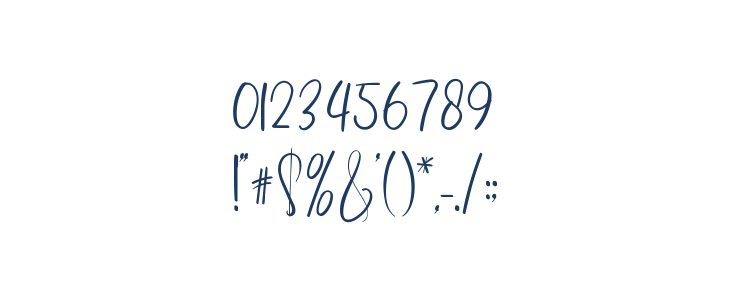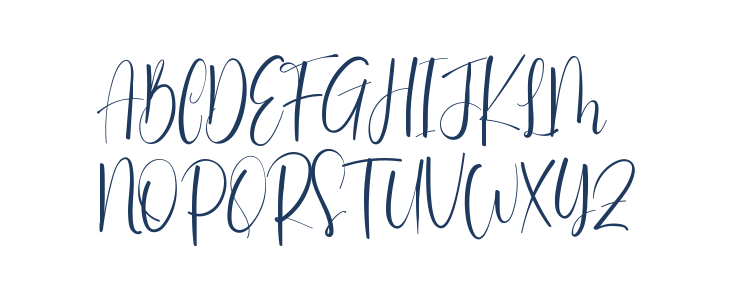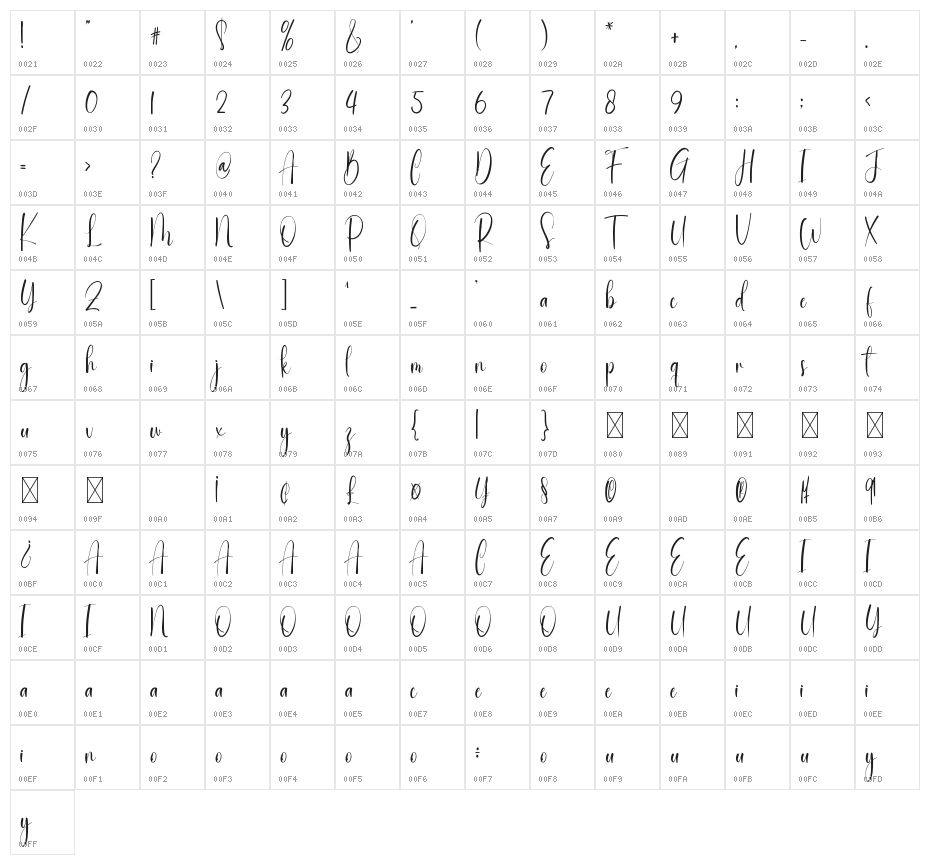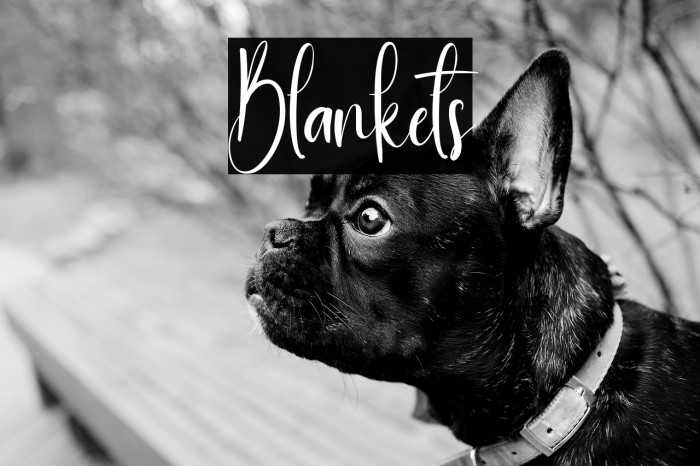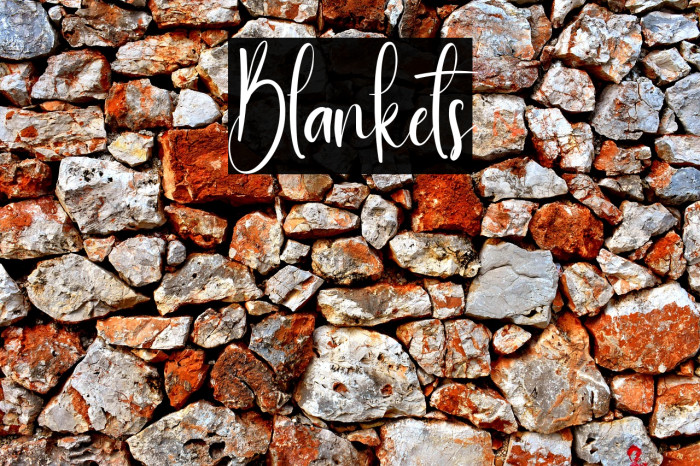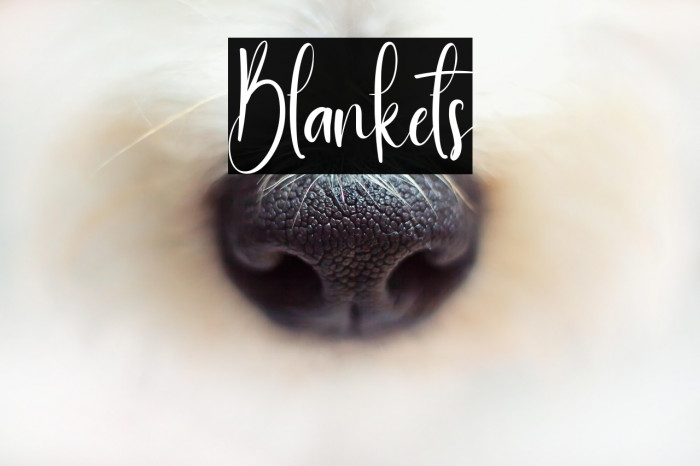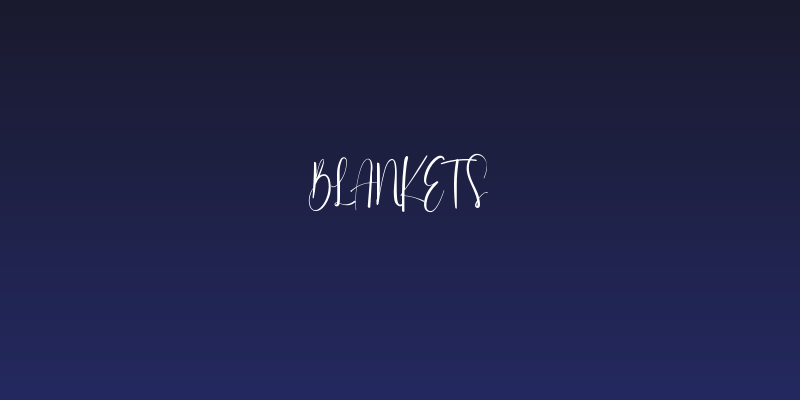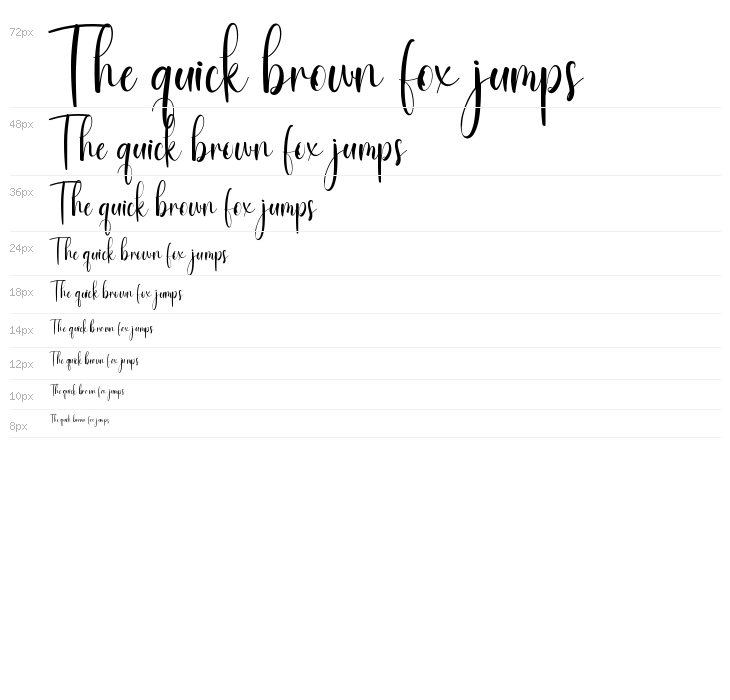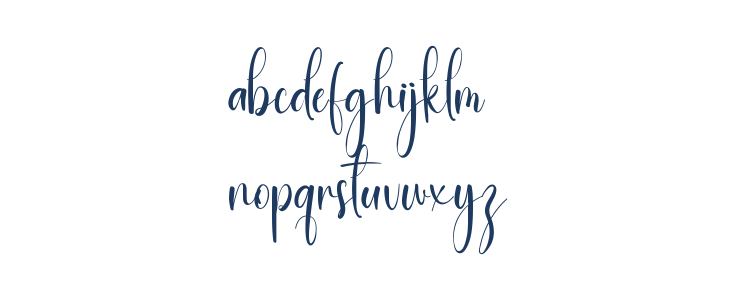
Blankets Font
Blankets Description
A playful, flowing handwritten script with tall, narrow letterforms and dramatic ascenders and descenders. The strokes are mostly monoline with slight variations, giving a casual yet elegant appearance. The characters are loosely spaced, and the overall look is whimsical and expressive.
| Overall Style | Decorative, Playful, Elegant |
| Use Case | Logos, Invitations, Headlines, Social media graphics |
| Proposed Projects | Greeting cards, wedding invitations, branding, social media graphics, quotes. |